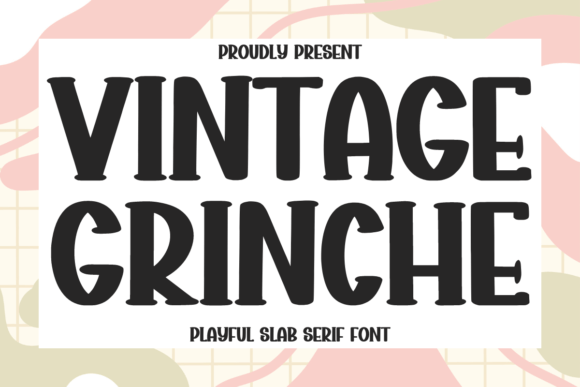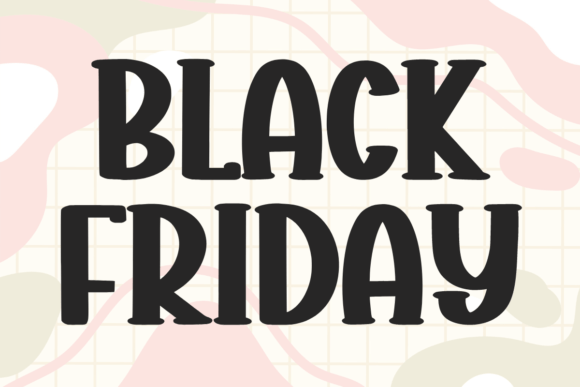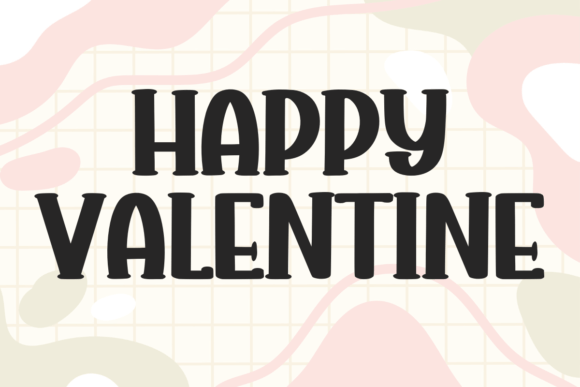
About Vintage Grinche Font
Vintage Grinche is a thick and playful slab serif font. The wide characters and chunky serifs make this font ideal for eye-catching designs. You can use it for headlines, t-shirt typography, banners, product labels, and many more.